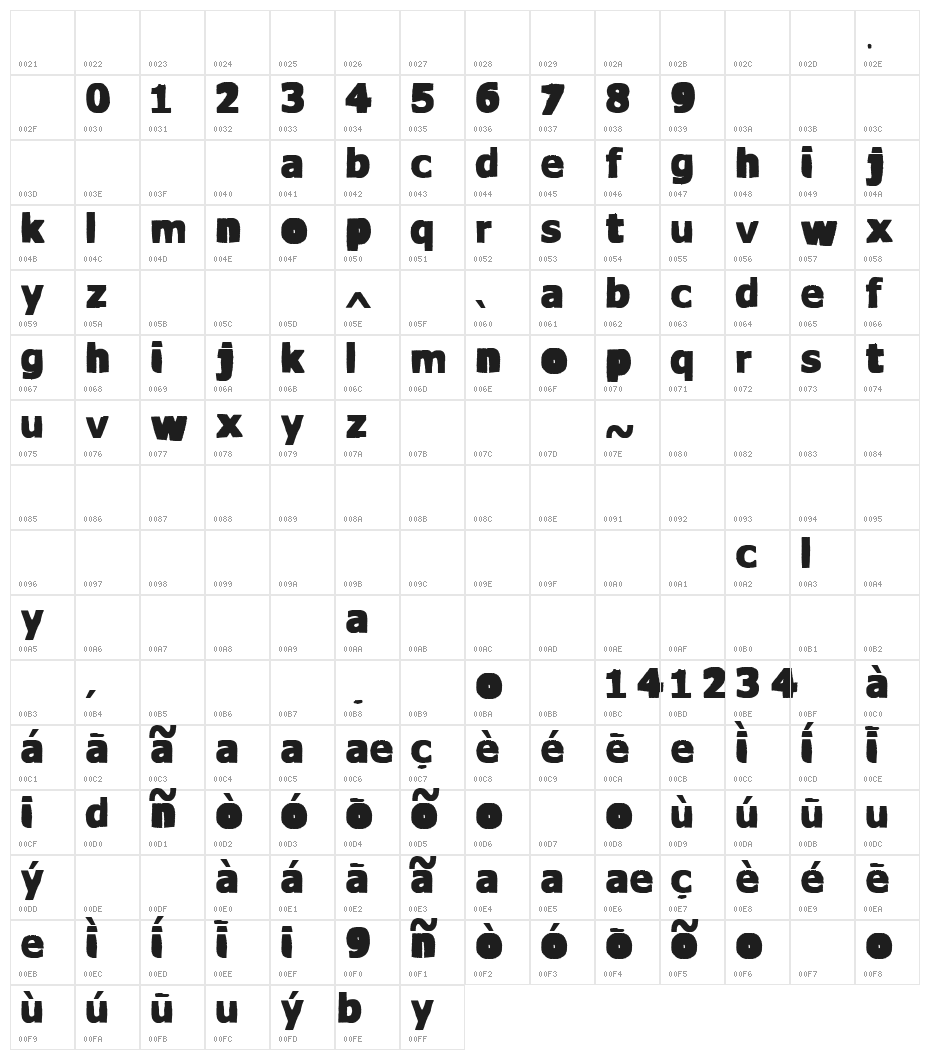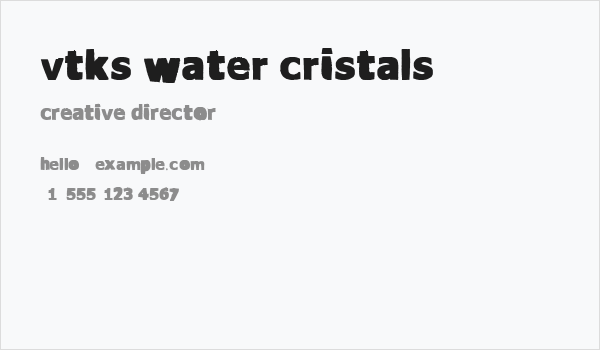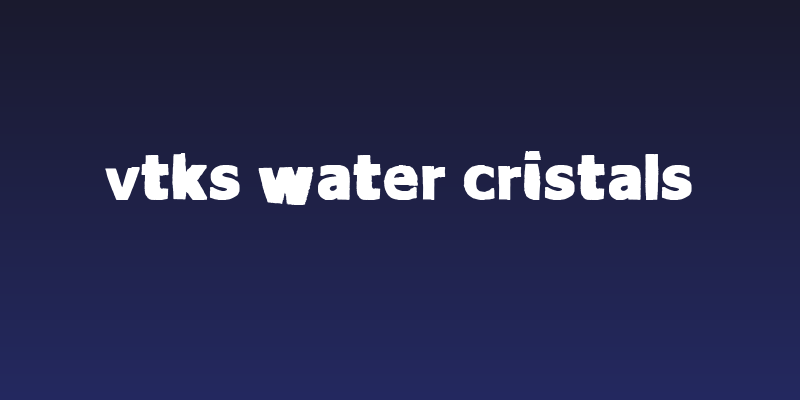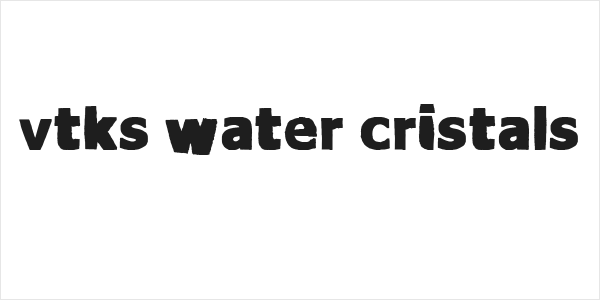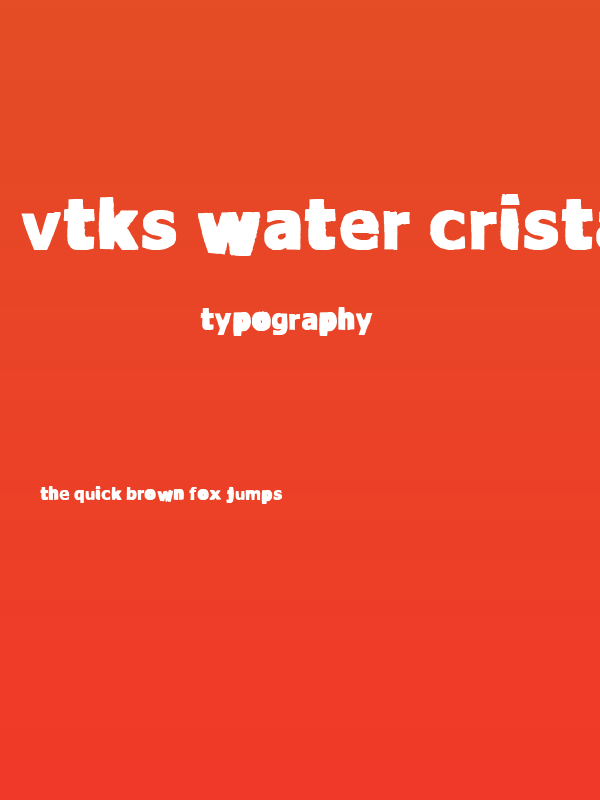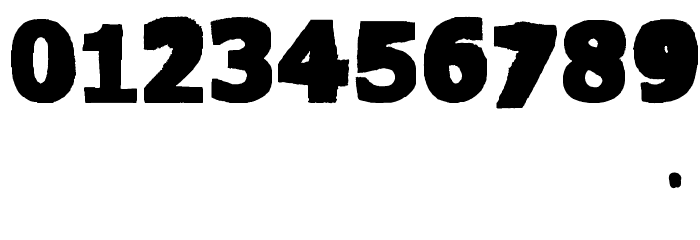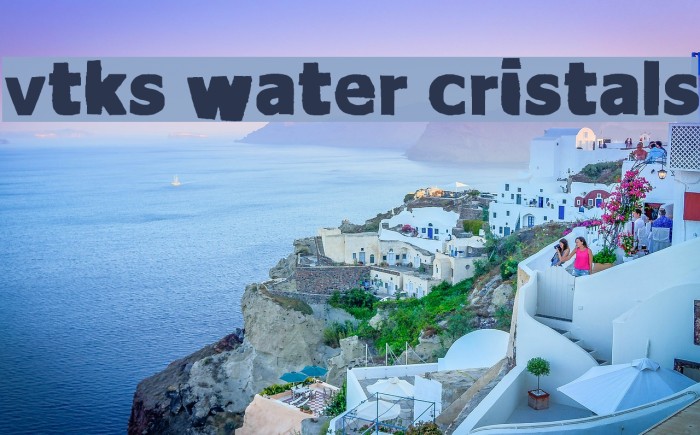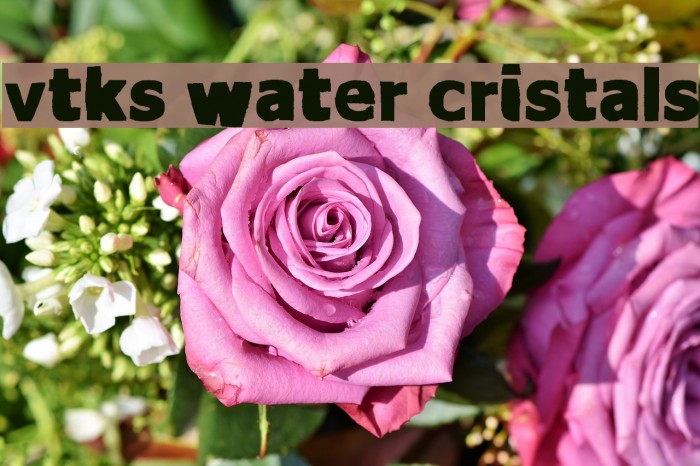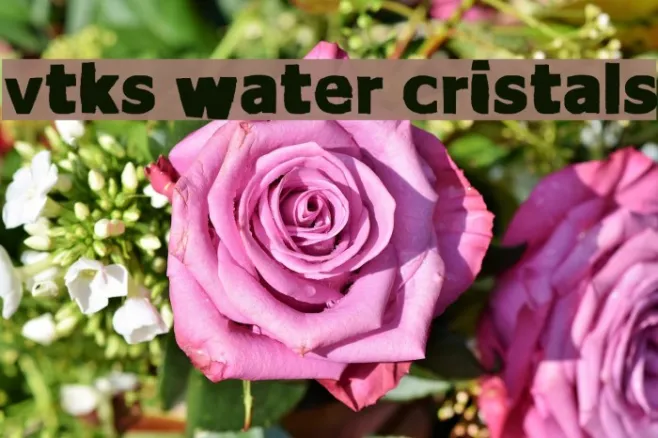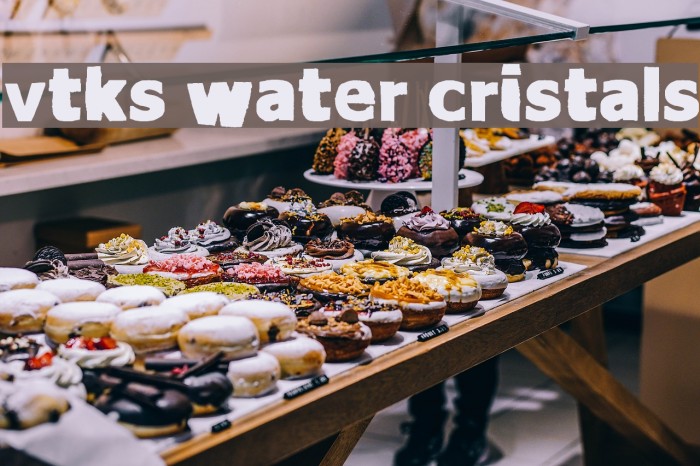
vtks Water cristals Font
vtks Water cristals Description
This font features a bold and rugged style with a textured appearance that mimics the look of water crystals. The characters are thick and have an uneven, organic edge, giving them a hand-crafted feel. The uppercase and lowercase letters are consistent in their boldness, while the numbers maintain the same textured aesthetic. The font's unique style makes it stand out, with each character appearing as if it has been carved or etched, adding a sense of depth and dimension. This font is ideal for projects that require a strong visual impact and a touch of creativity.
| Use Case | Logos, Headlines, Posters |
| Proposed Projects | Ideal for posters, logos, branding, and creative projects that require a bold and artistic touch. |